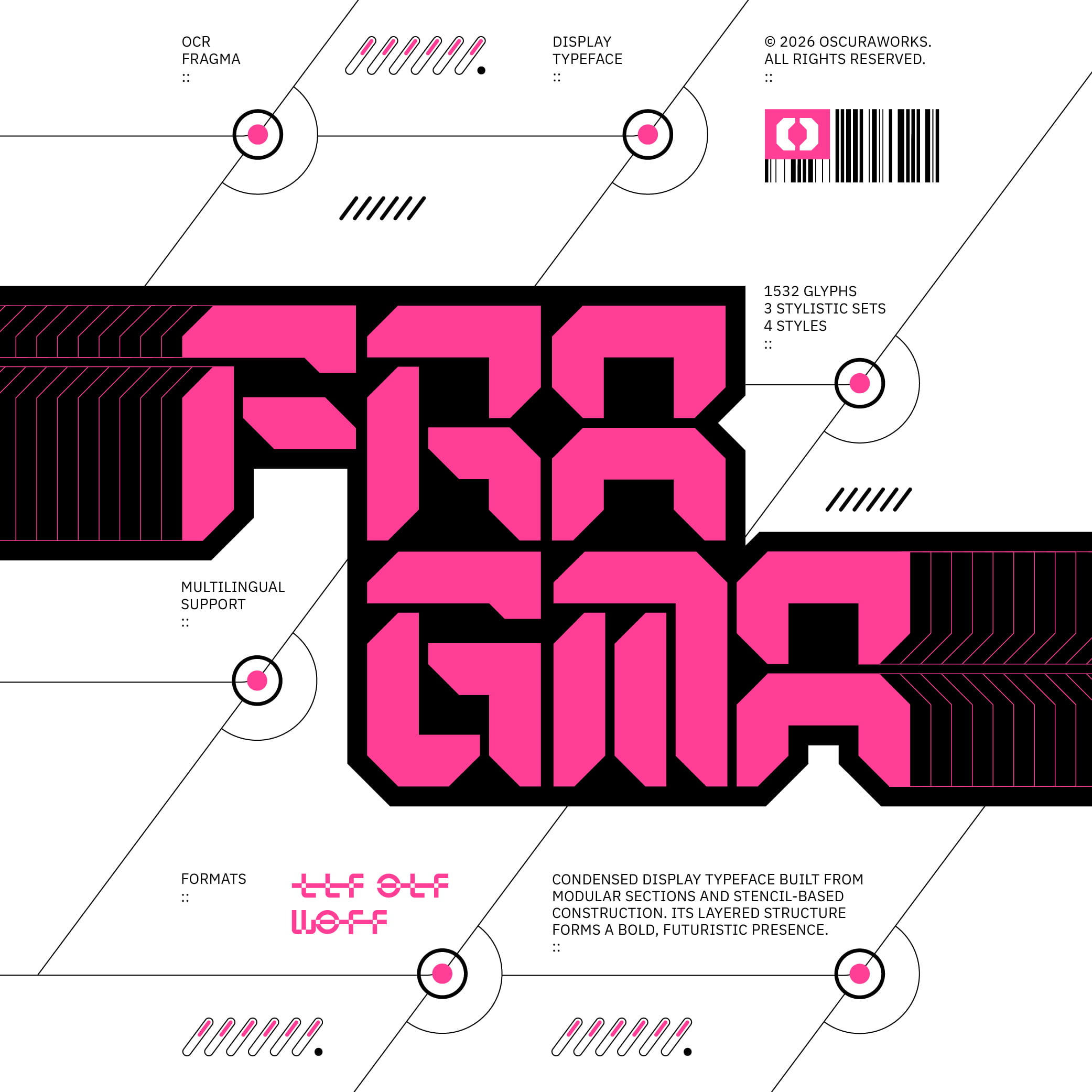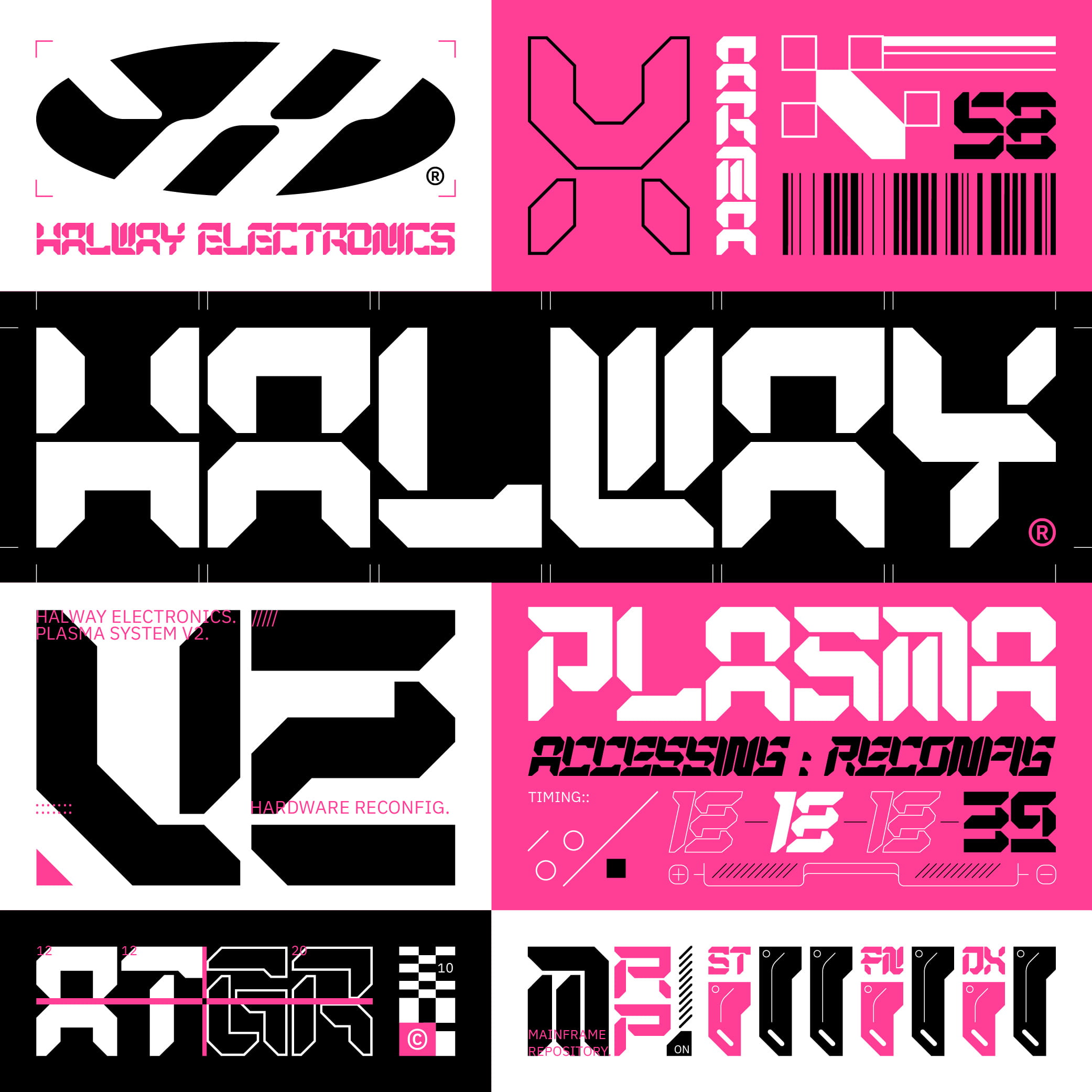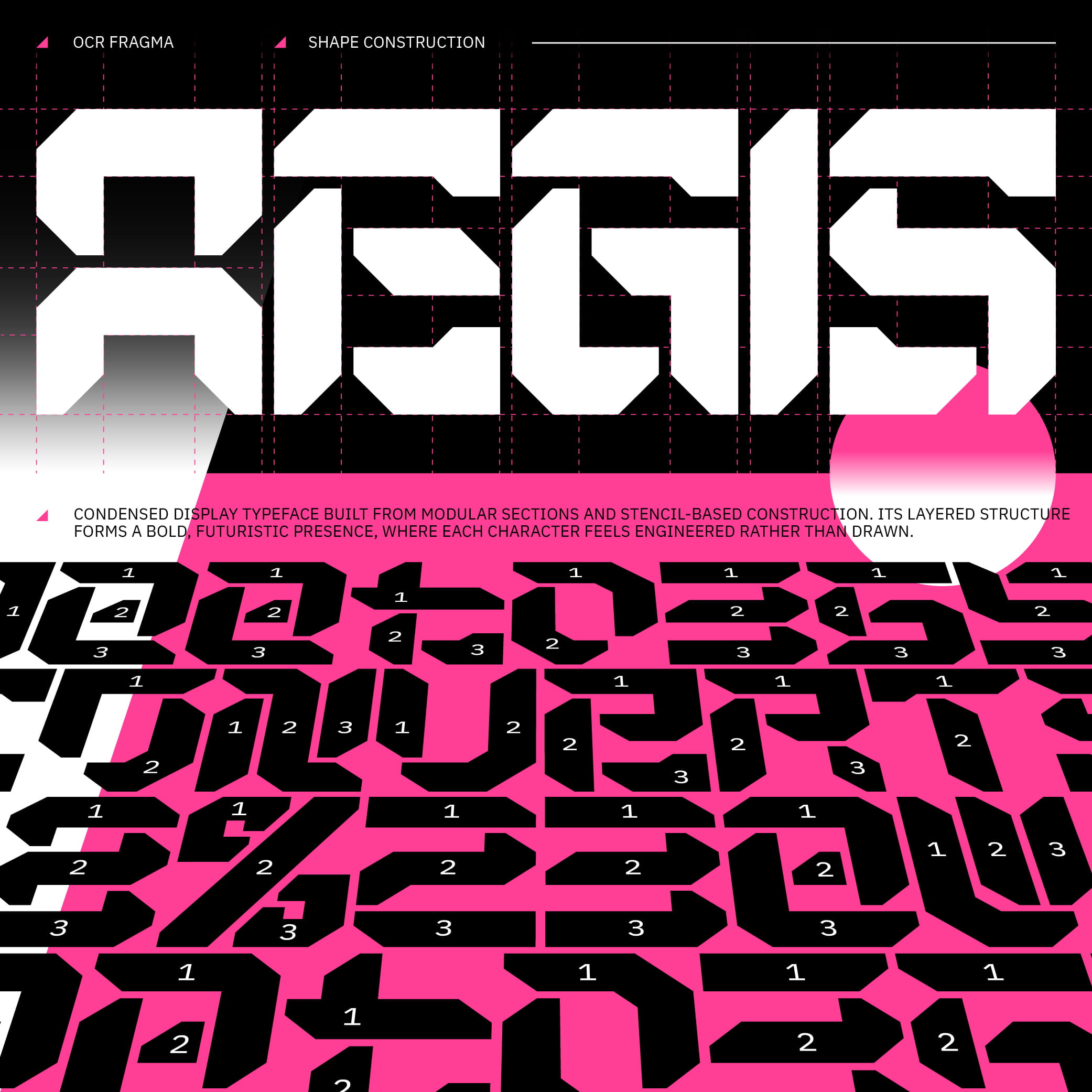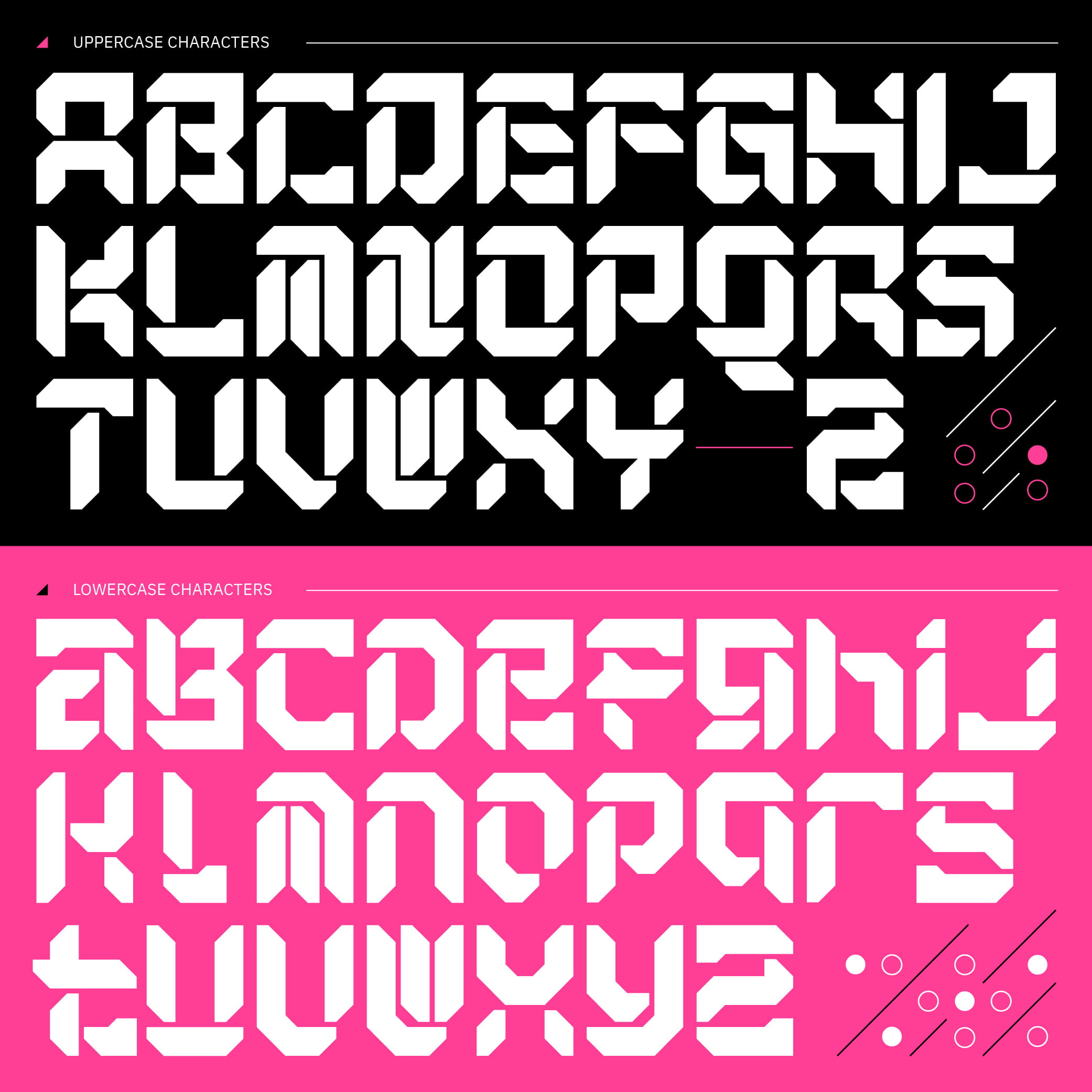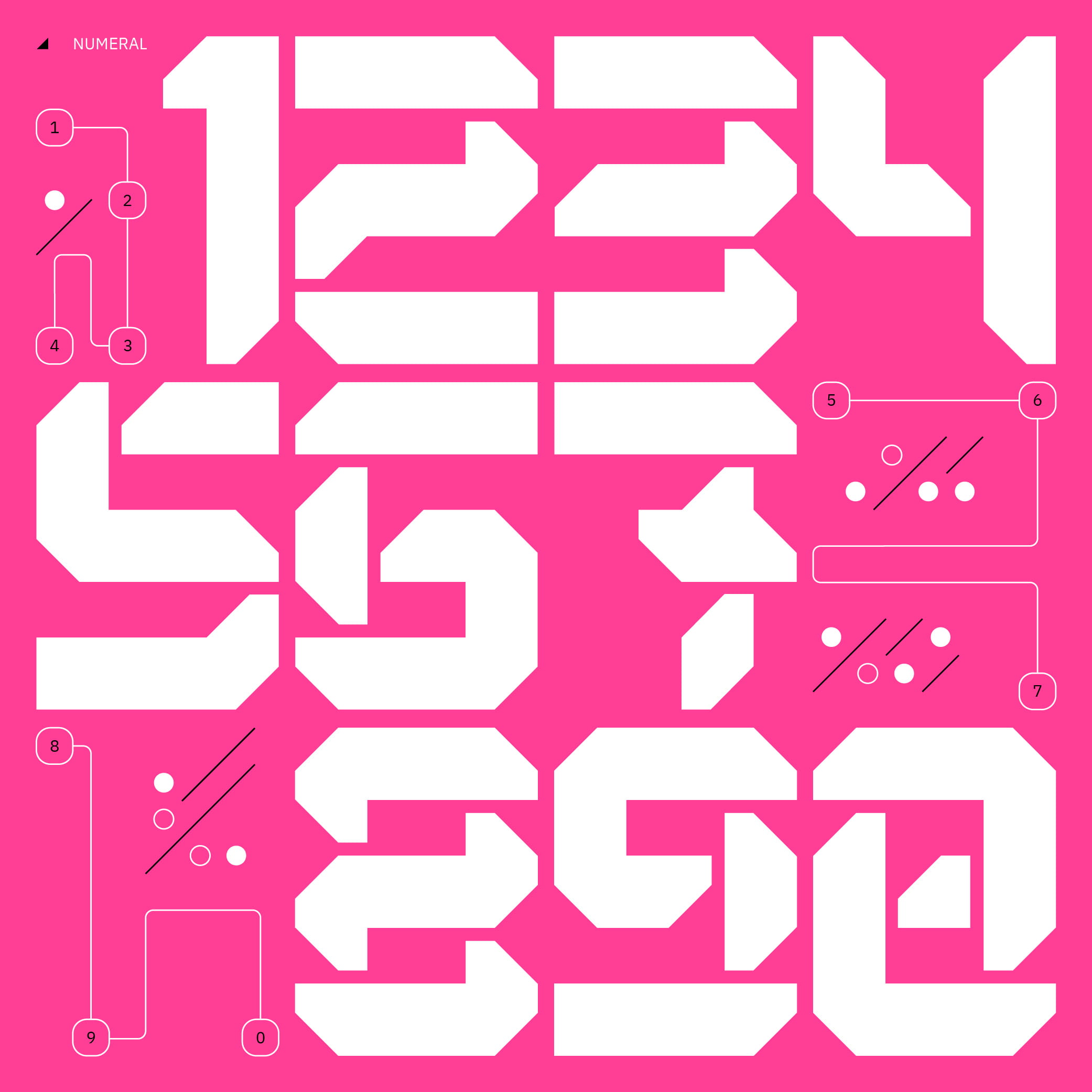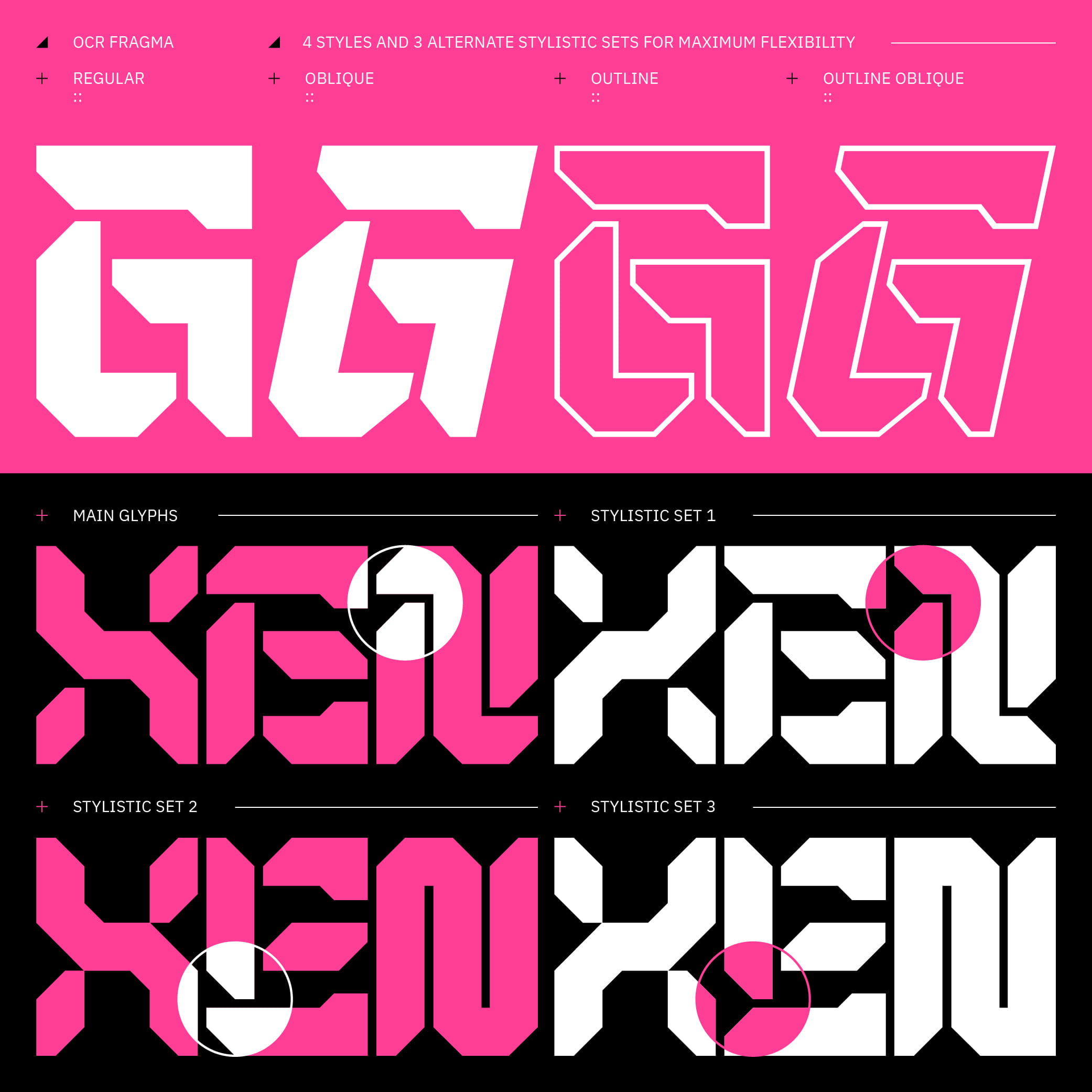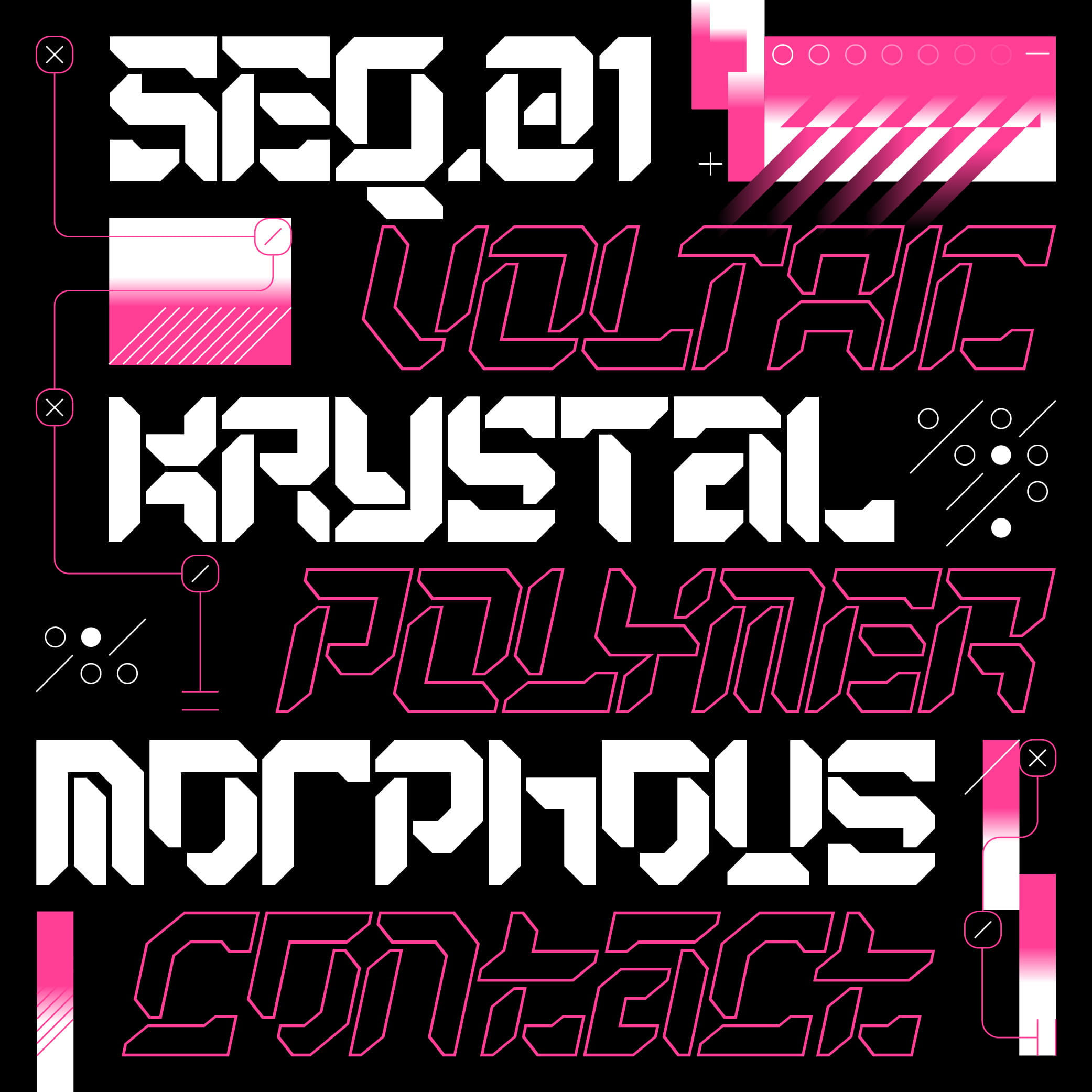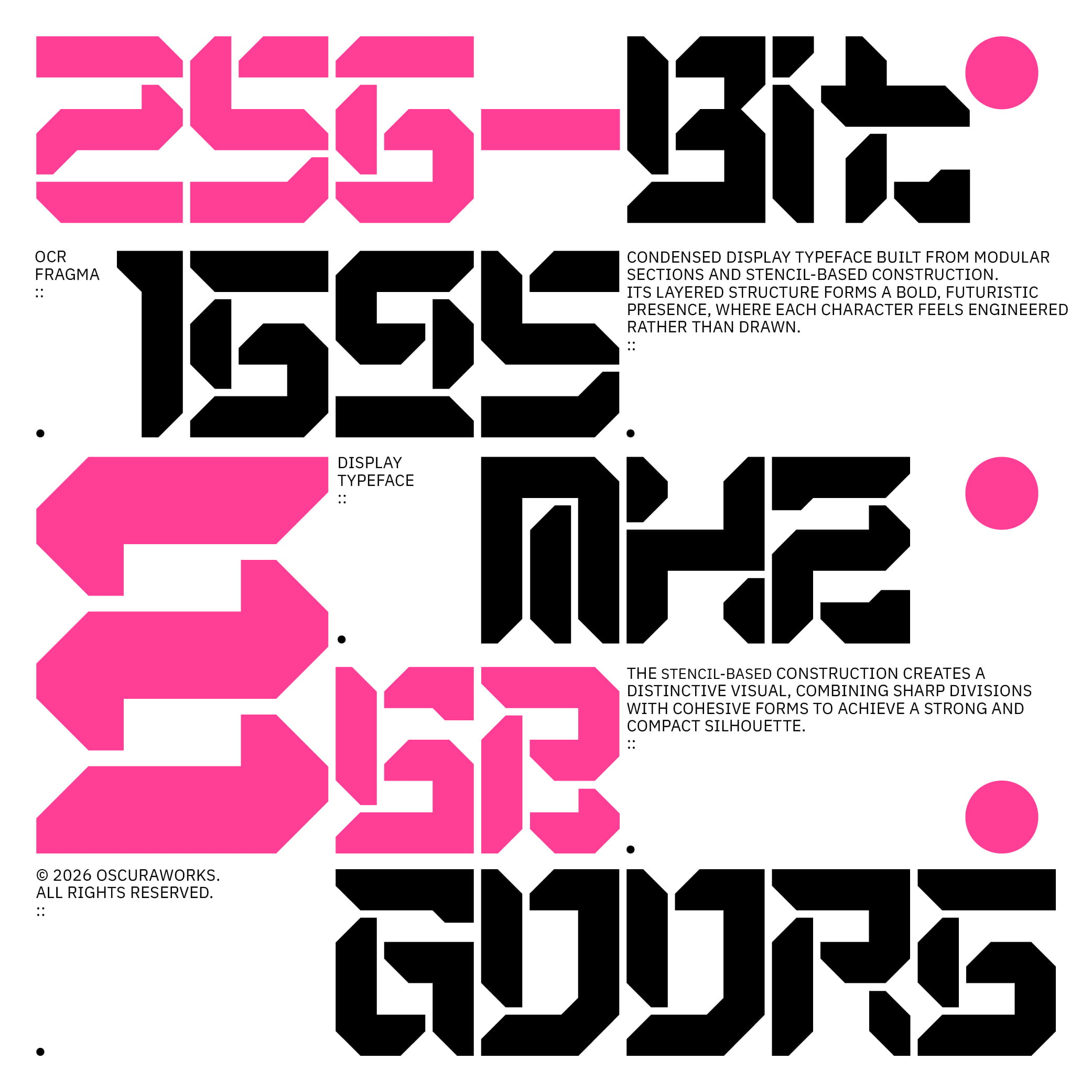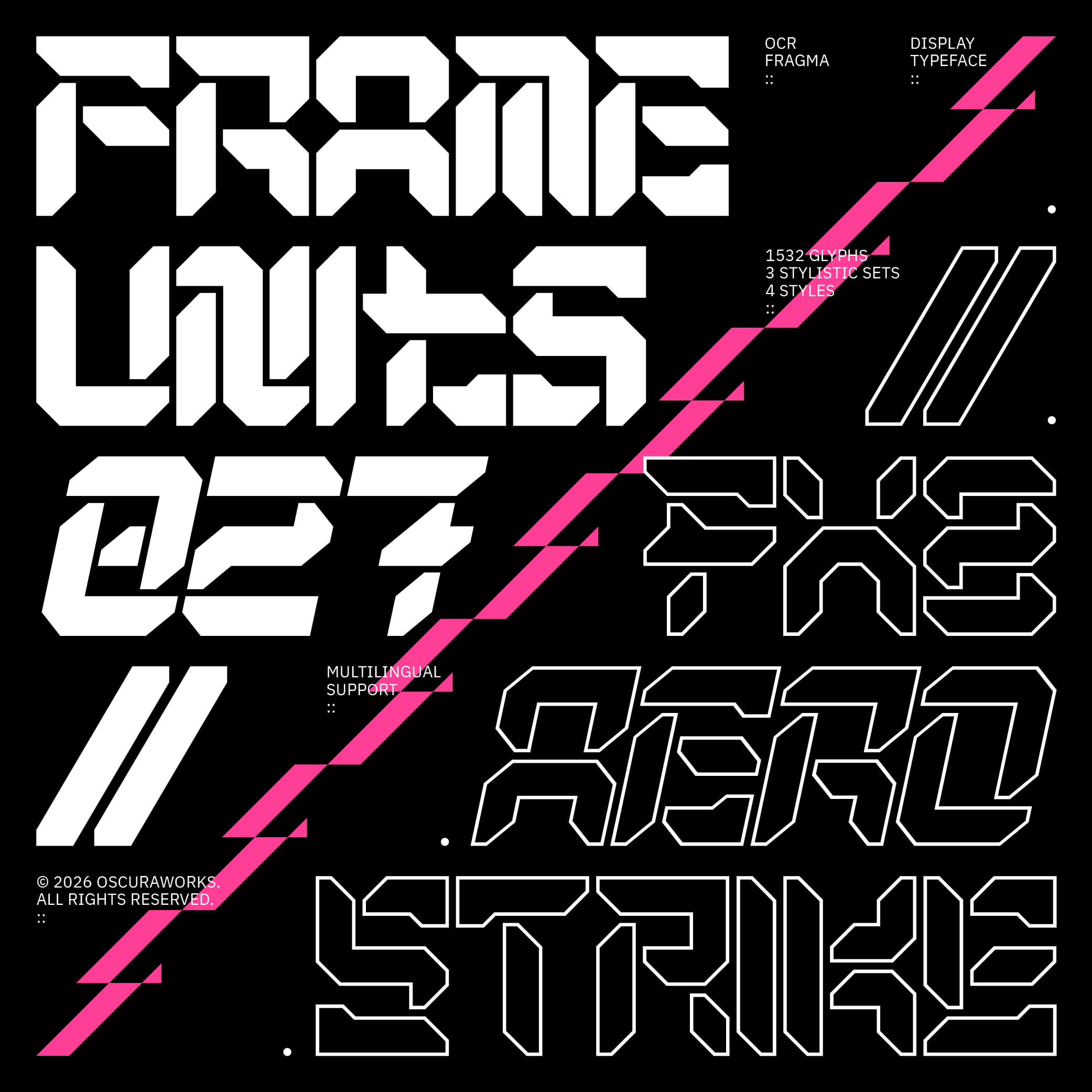
OCR Fragma is a high-impact, condensed display typeface defined by stencil-based construction and rigorous modularity. Engineered for maximum presence within compact proportions, its segmented forms create a sharp, rhythmic interplay between solid architecture and intentional negative space.